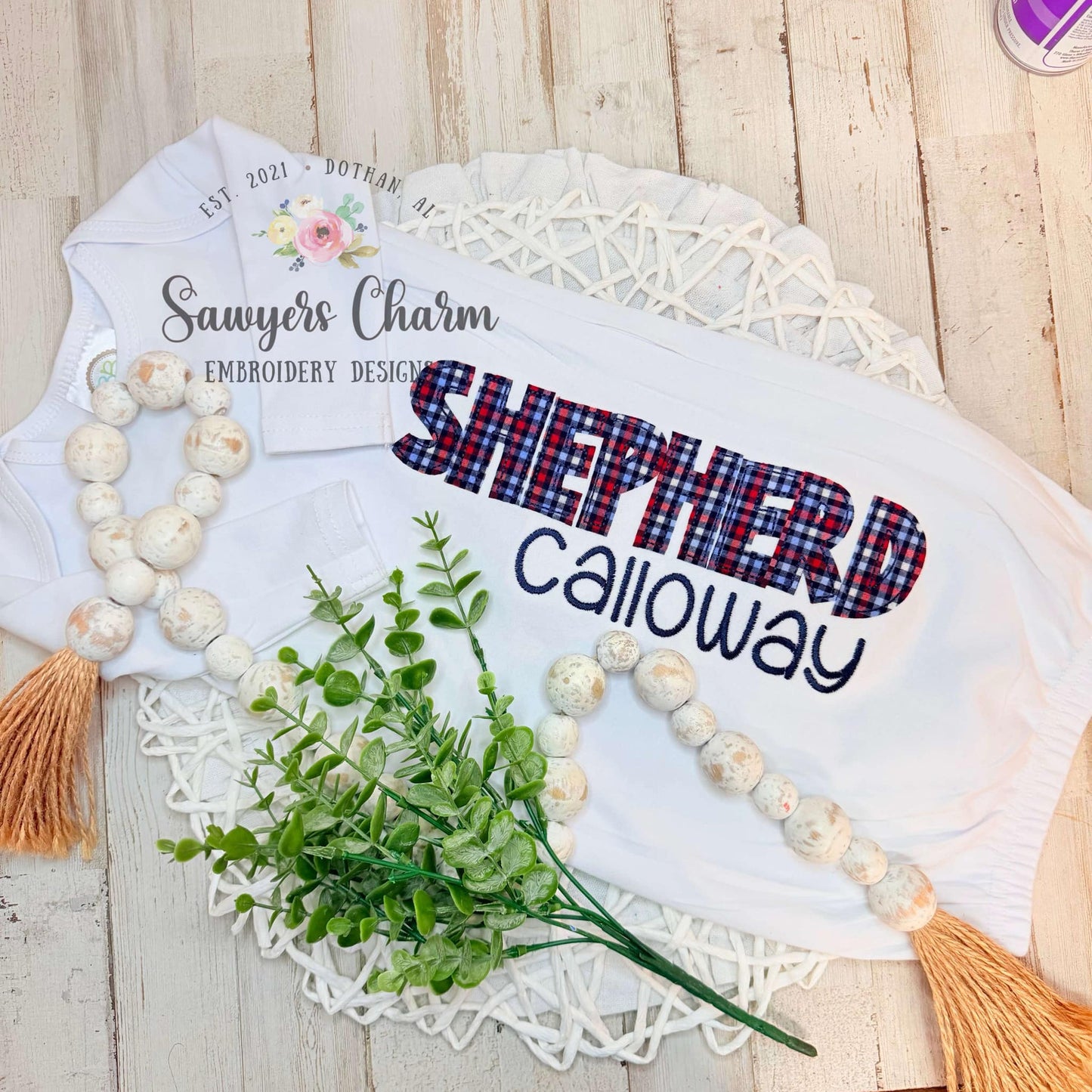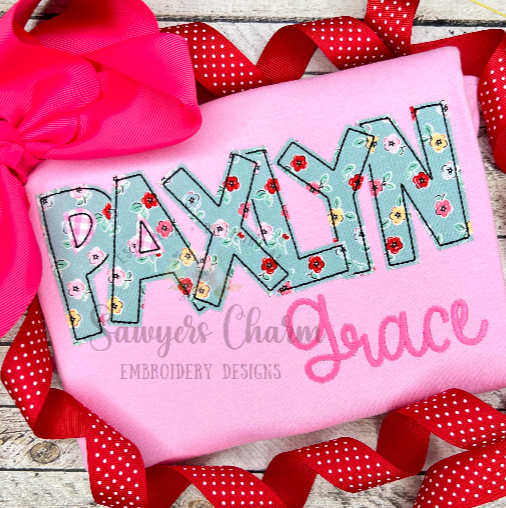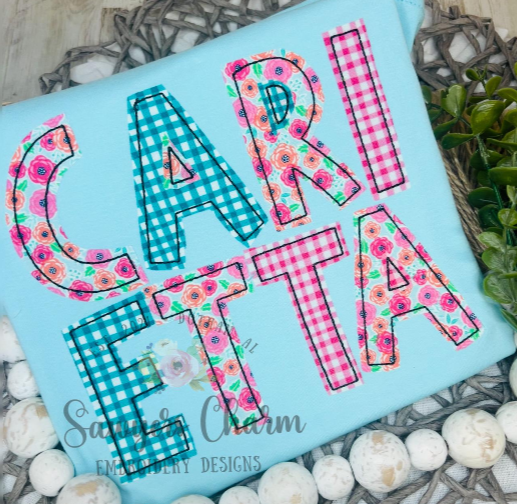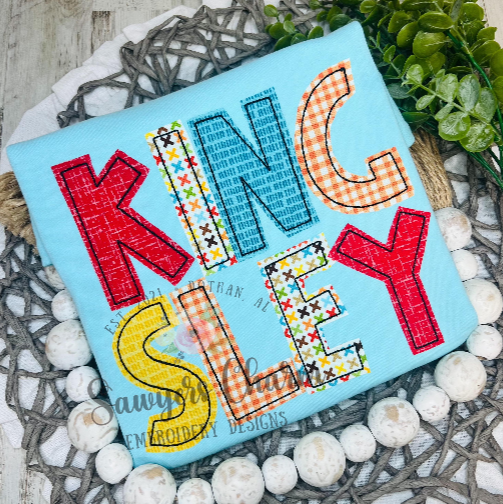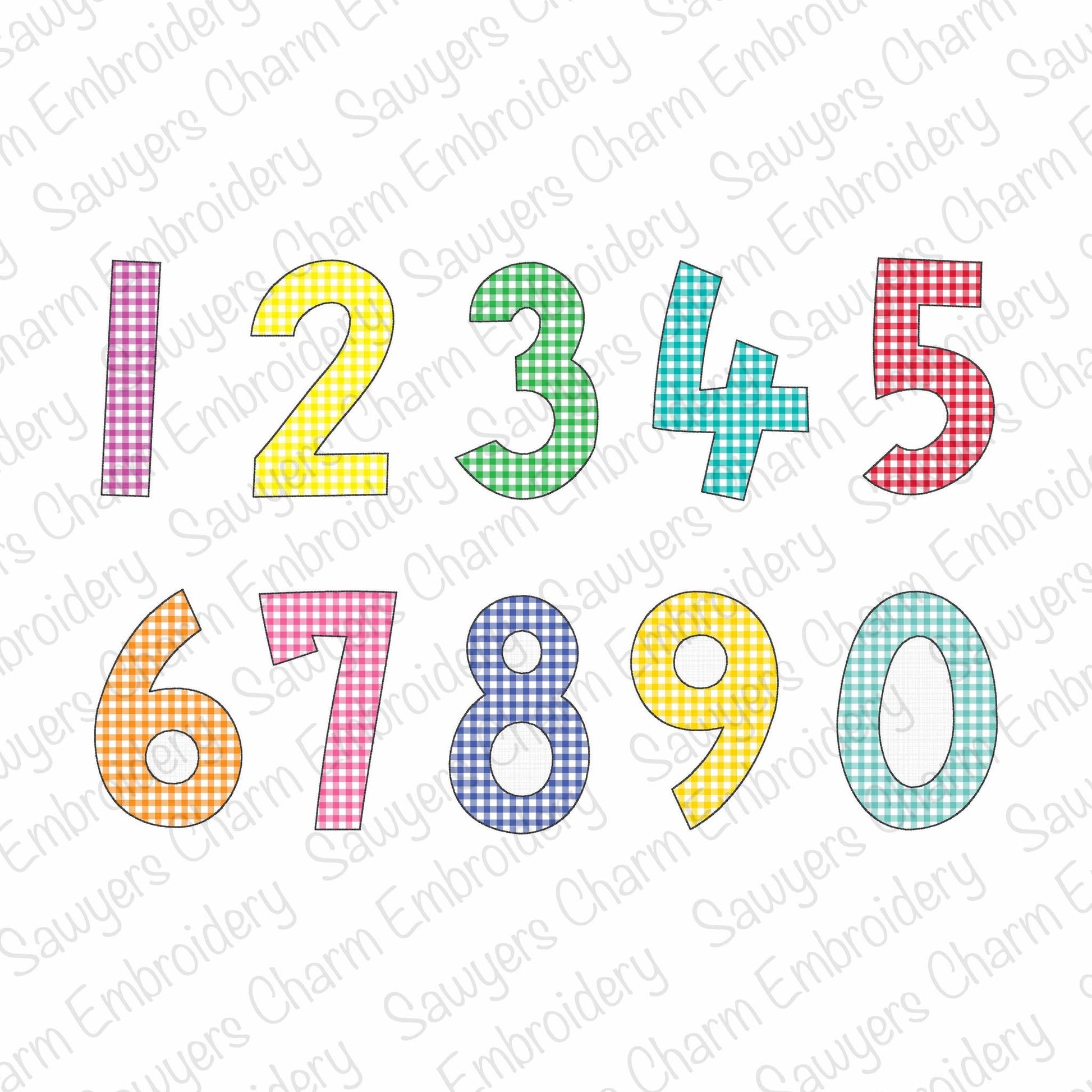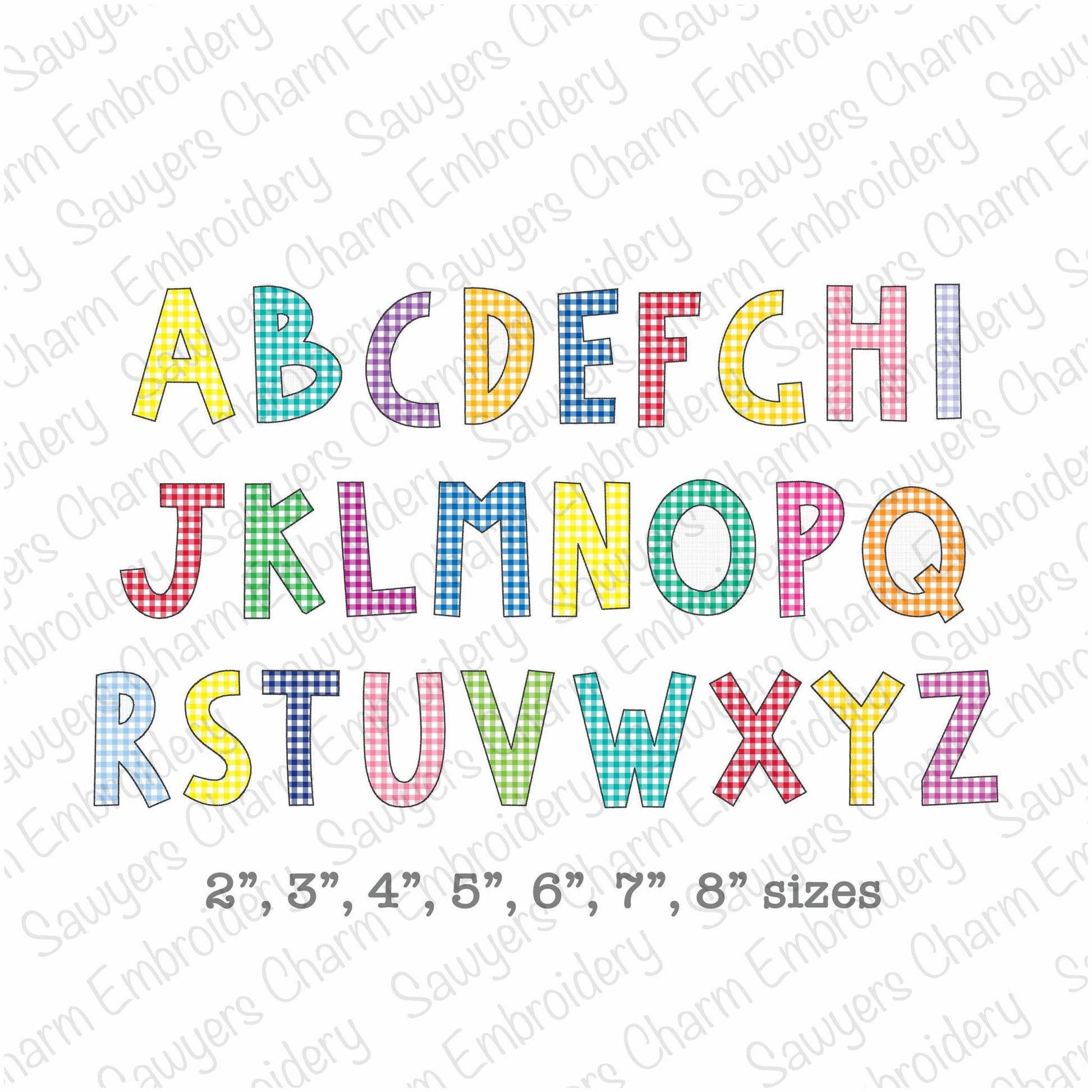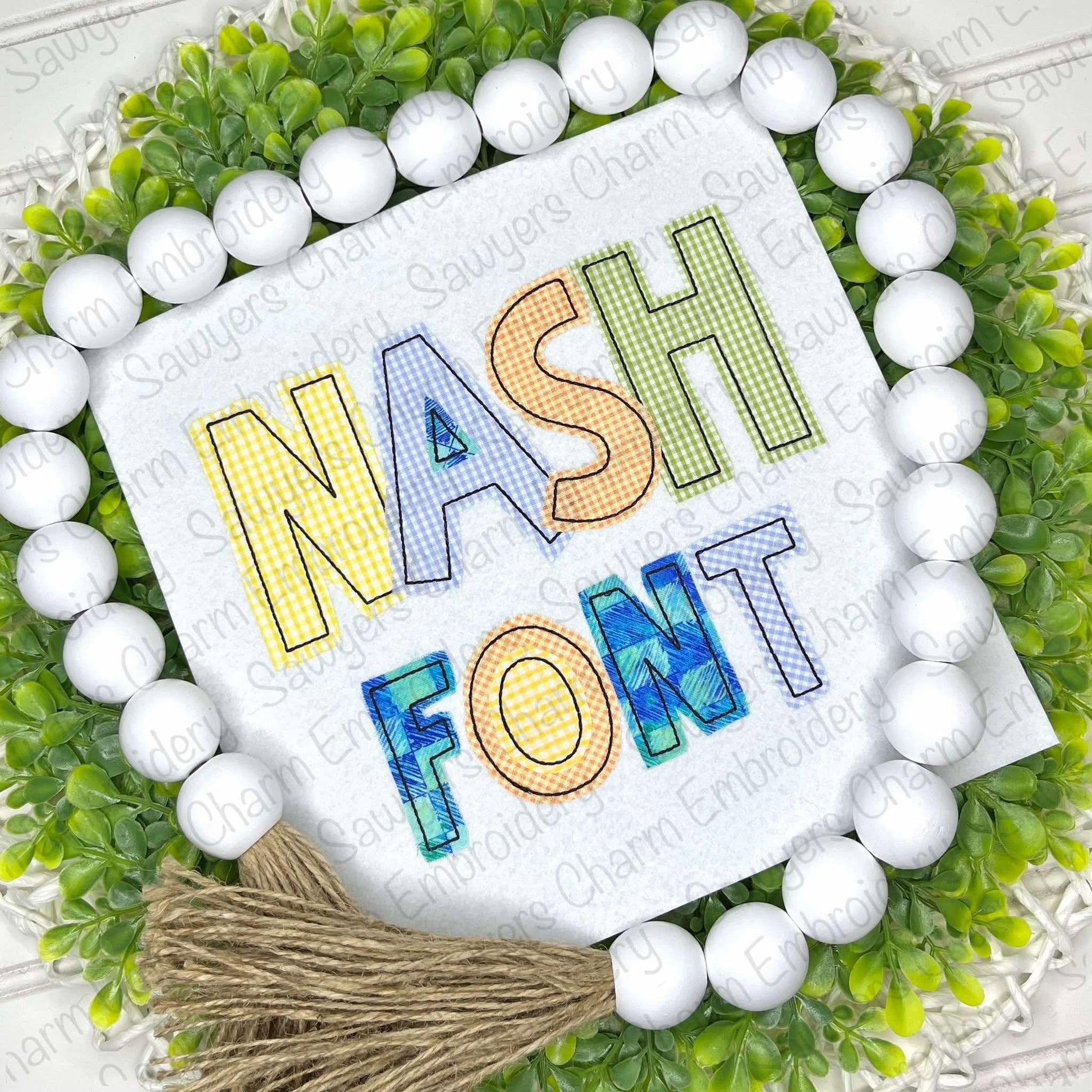
Nash bean stitch machine applique embroidery font, uppercase letters, BX format included, 2"-8", quick stitch, numbers included
This embroidery font comes in several sizes.....2" tall, 3" tall, 4" tall, 5" tall, 6" tall, 7" tall, and 8" tall. This is a bean stitch applique and is such a quick stitch! You must have knowledge of how machine appliques work. You will need to use fabric to complete the look of this font. I highly recommend using Heat N Bond Lite on the backs of all your applique fabrics. It helps to keep the fabric nice and crisp and from unraveling. For bean stitch appliques, you will need to trim your fabrics a solid 1/4" away from the edge of the final bean stitch to keep it from unraveling. It is meant to have an unfinished edge. Please see first photo of how the fabric is trimmed if you need a visual. :)